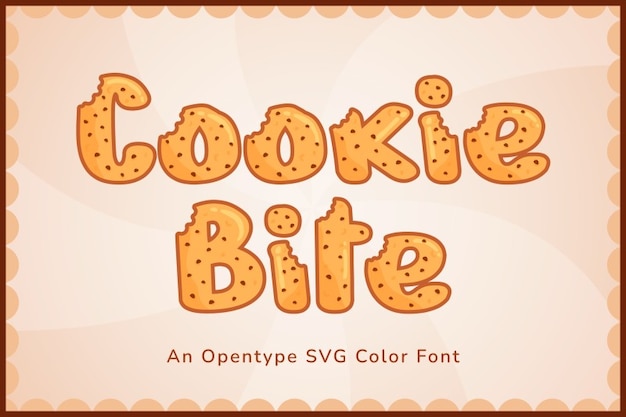
Cookie Bite
Cookie Bite Font
Cookie Bite is a delightful and playful font inspired by the irresistible charm of cookies. Perfect for food-related designs, this font features sweet, bite-sized characters that add a whimsical touch. Ideal for bakery logos, dessert menus, and confectionery branding, Cookie Bite makes your text look deliciously inviting, adding a fun and sugary flair to any project.